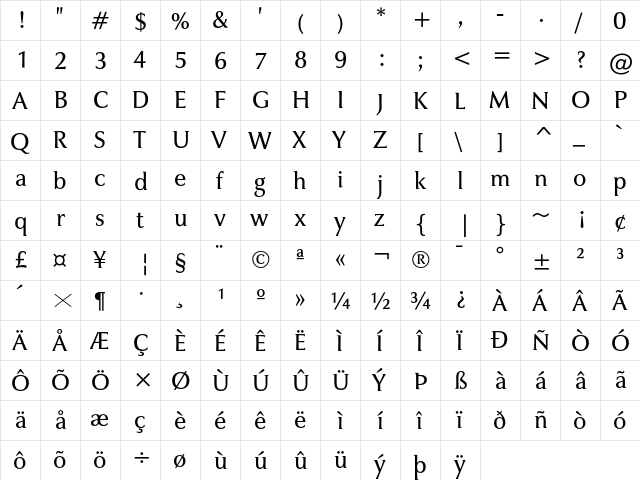
JaguarJC Book
Design Context for JaguarJC Typeface
JaguarJC offers clean, dependable letterforms without strong stylistic allegiance, making it a practical choice for designers who need flexibility.
Pro Tip: Pair JaguarJC with a font of contrasting weight or personality to build a more expressive typographic hierarchy.